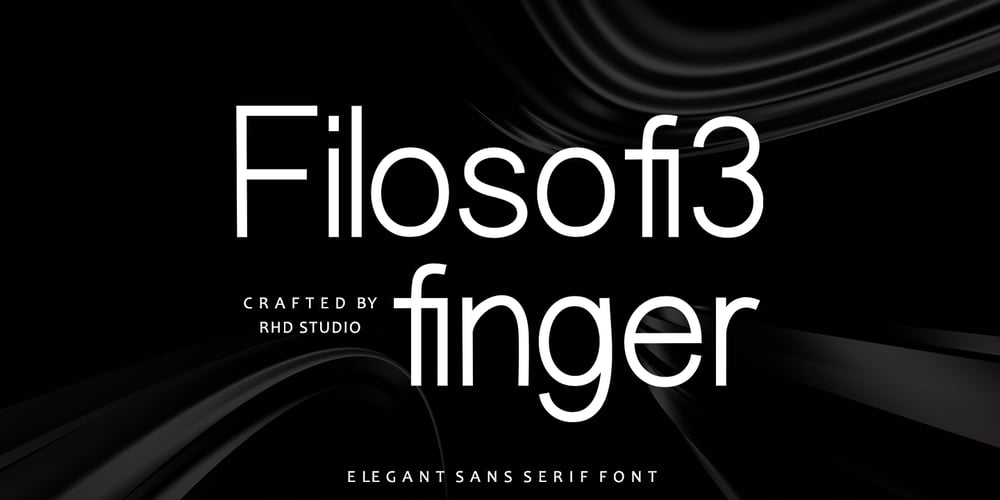
Filosofi 3 finger Italic Font Family was designed by Rahmad Rizky and published by Rhd Studio. Filosofi 3 finger Italic contains 3 styles and family package options. Filosofi 3 Finger Sans Serif Font that we created special for Display, Logo and BrandingA new Serif font that is nice to leverage designer or product owner that need solutions to make their design look more gorgeous and vintage. And specially for this font, We prepared any characters to help you create gorgeous for your creative needs specially for headline, and typography needs.Filosofi 3 Finger Sans Serif font ready with: Stylish Shape to get creative Preview as a inspirations that you can do with this font Ready with All Uppercase characters Wish you enjoy our font. 🙂